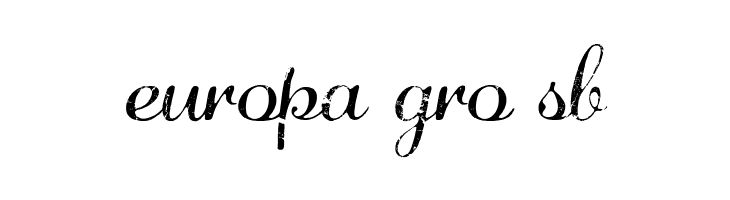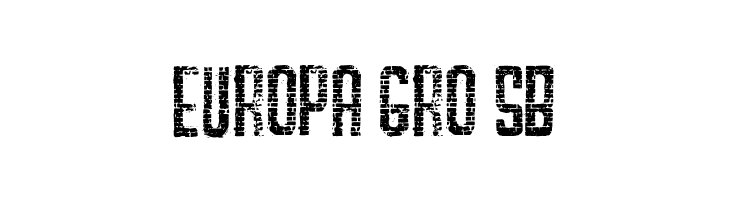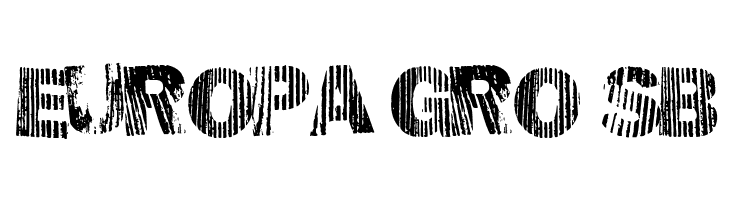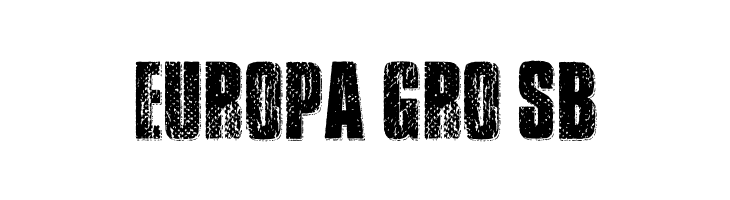
A bold, distressed font with a grunge, textured appearance.
A textured, distressed font with a rugged, urban feel.
A bold, distressed font with a grunge texture, perfect for edgy designs.
A distressed, script-style font with a vintage, textured appearance.
A bold, distressed font with a rugged, vintage texture.
A bold, distressed font with a grunge, vintage aesthetic.
A bold, distressed font with a grunge, textured appearance.